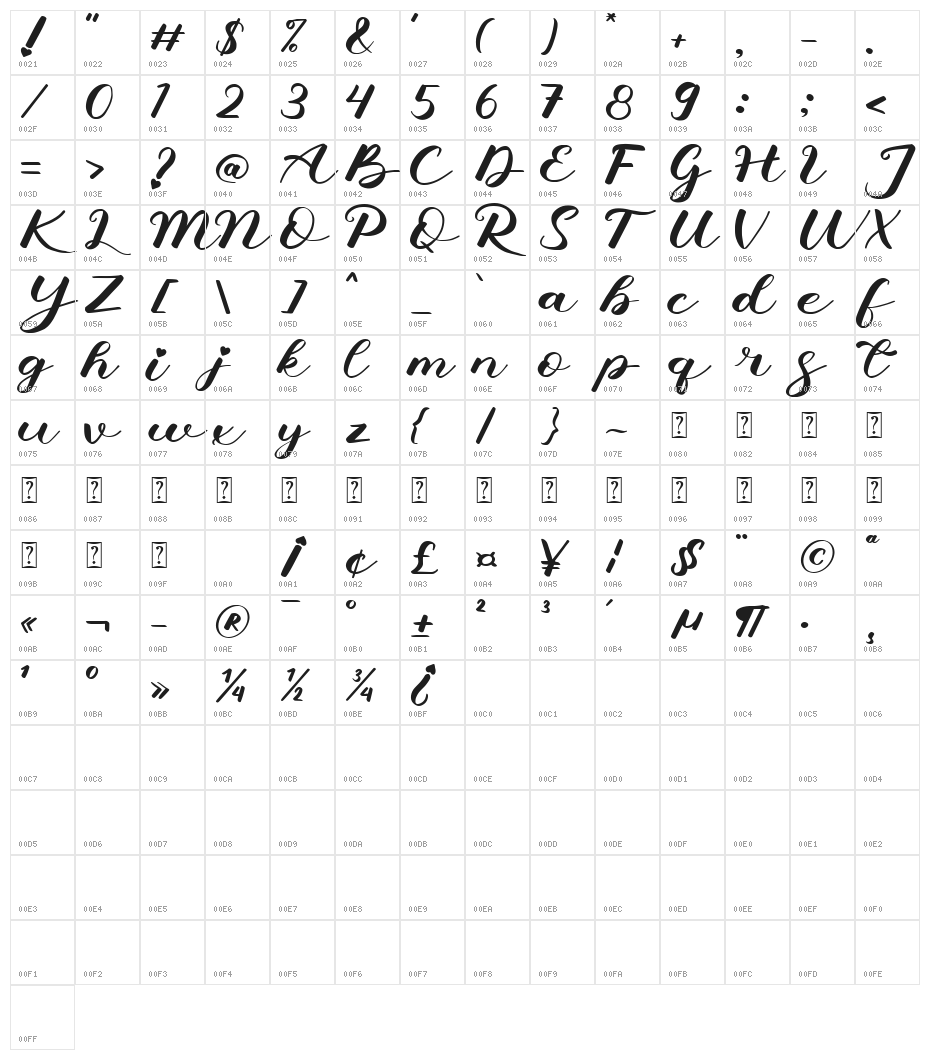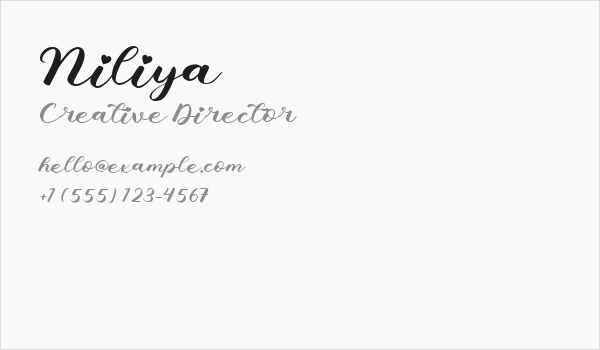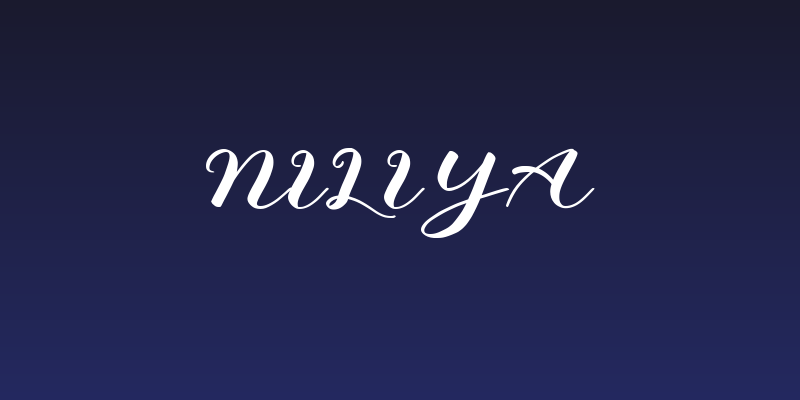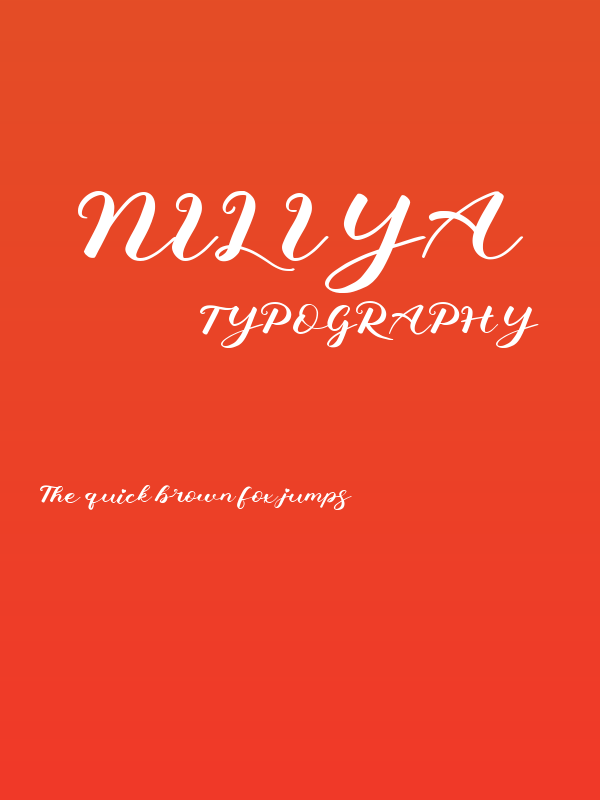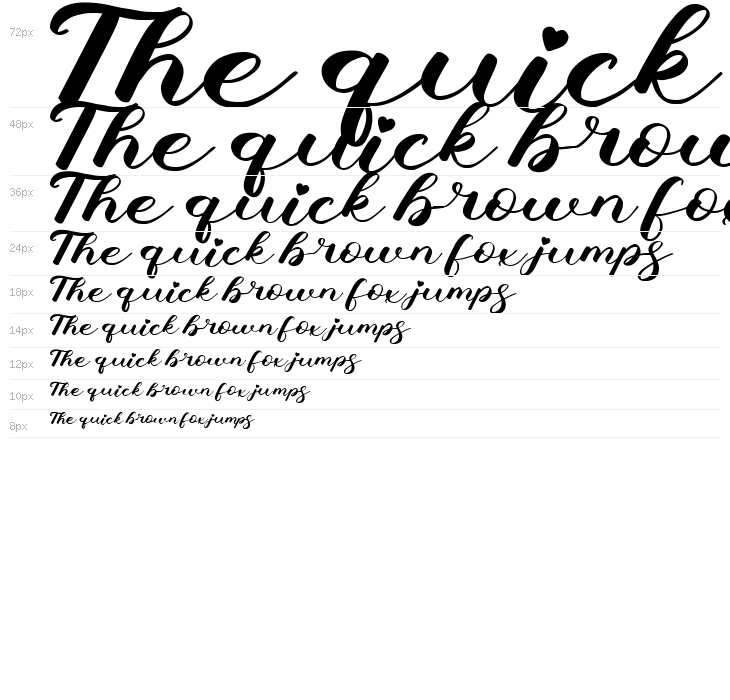
Niliya Font
Niliya Description
This font features a flowing, cursive style with elegant, sweeping strokes that give it a sophisticated and artistic appearance. The uppercase letters are bold and expressive, with distinctive loops and flourishes that add a touch of drama. The lowercase letters maintain a consistent flow, with some characters like 'g', 'j', and 'y' having extended descenders that enhance the script's fluidity. The numerals are clear and maintain the script's aesthetic, while the special characters are designed to complement the overall style. This font is ideal for creative projects that require a personal, handwritten touch.